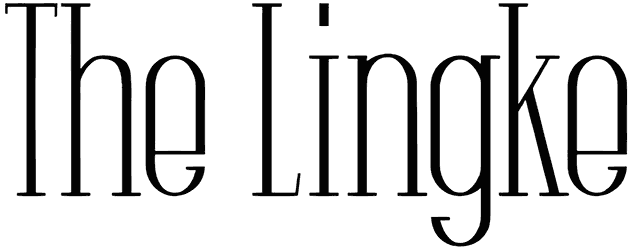
The Lingke Font
The tall and classy elements found in The Lingke will give your text the glory it calls for. Once you spell out your words with such delicate characters from this classic font, you can be sure that the output will be high-end and perfectly fit for any luxury business.
That includes presenting your fancy restaurants, jewelry stores, hotels, and home design services. In other words, you can always count on this elegant font for logotypes, business cards, signs, and more.
The Lingke – Stylish Modern Serif Font